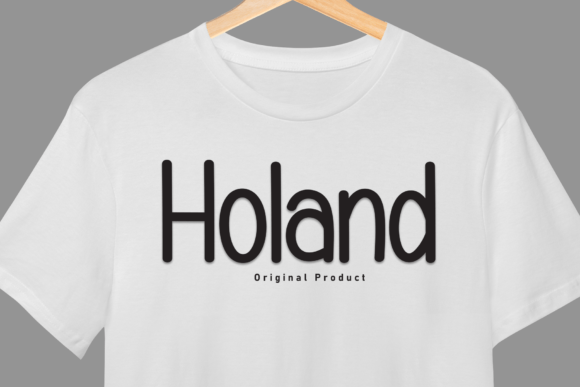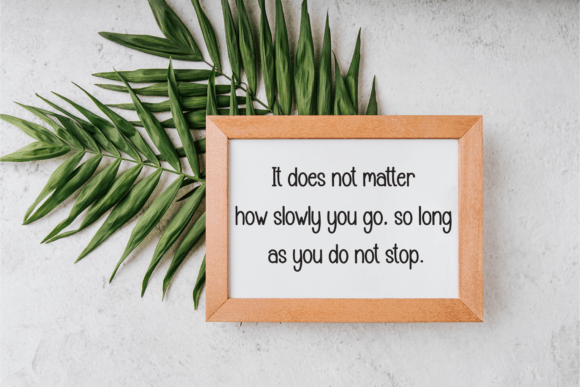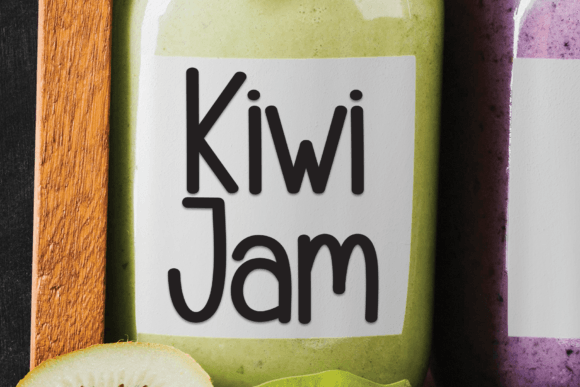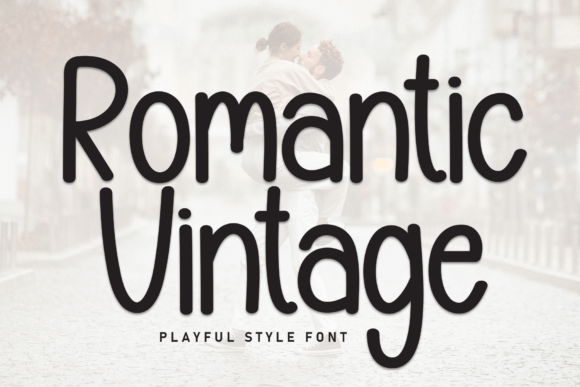
Introduction to Romatic Vintage Font
Infuse your designs with an irresistible charm using our delightful handwritten display font – the perfectly sweet and friendly element for your creative projects.
Endowed with an adorable simplicity and fun feel, this font shines in cases where a dash of whimsy is needed From wedding invitations to celebratory cards, or any design that calls for a touch of joy, this font is the difference between the ordinary and the unforgettable.